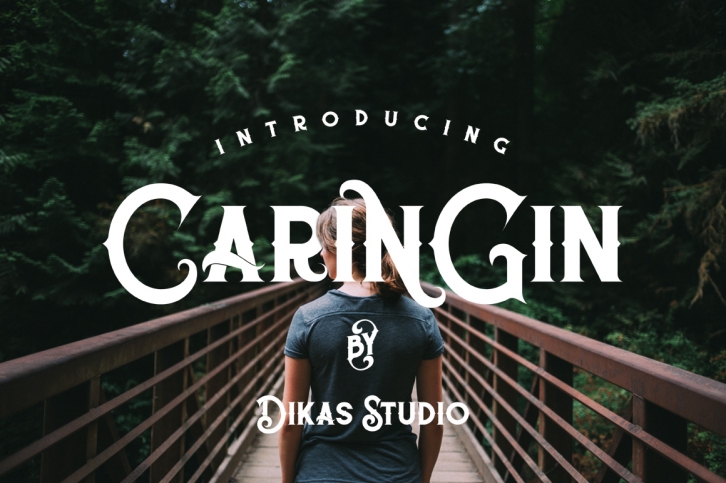
Caringin is a gorgeous all caps font with vintage style. You can mix alternate characters to make this font look incredibly stylish. Caringin is perfect for vintage oriented projects.